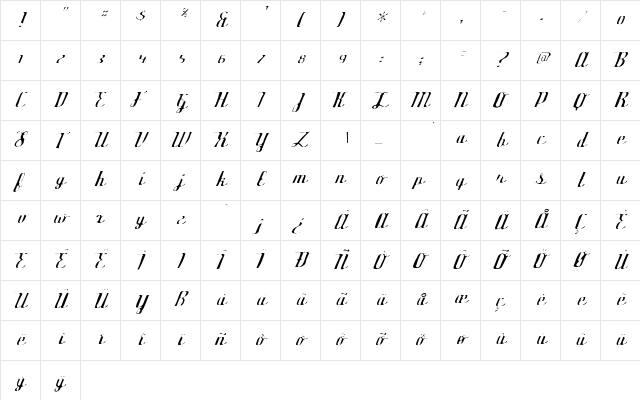
Deftone Stylus Gaunt Regular
Design Context for Deftone Stylus Gaunt Typeface
Deftone Stylus Gaunt is a composed and adaptable typeface that performs quietly and consistently across a wide range of design contexts.